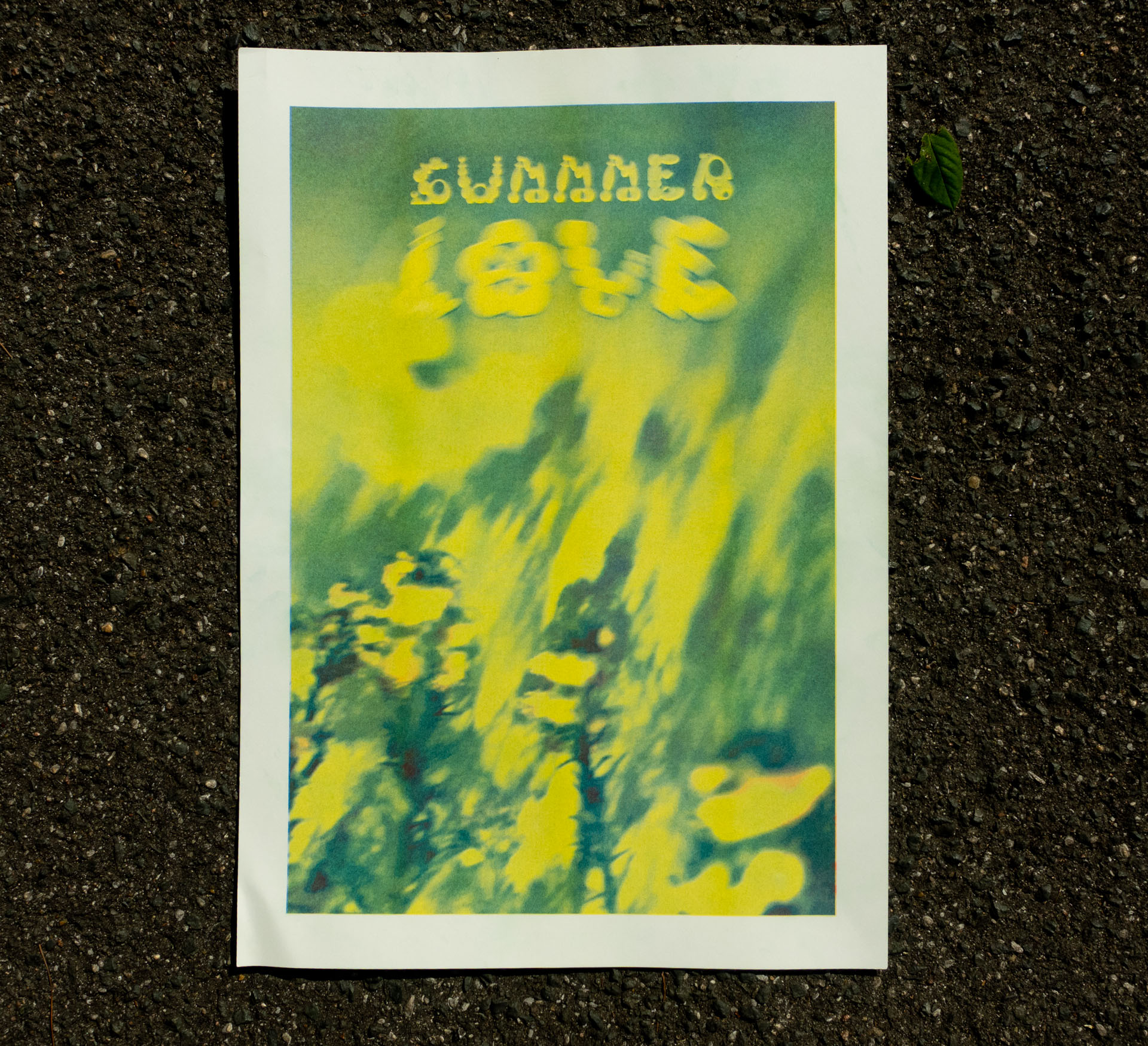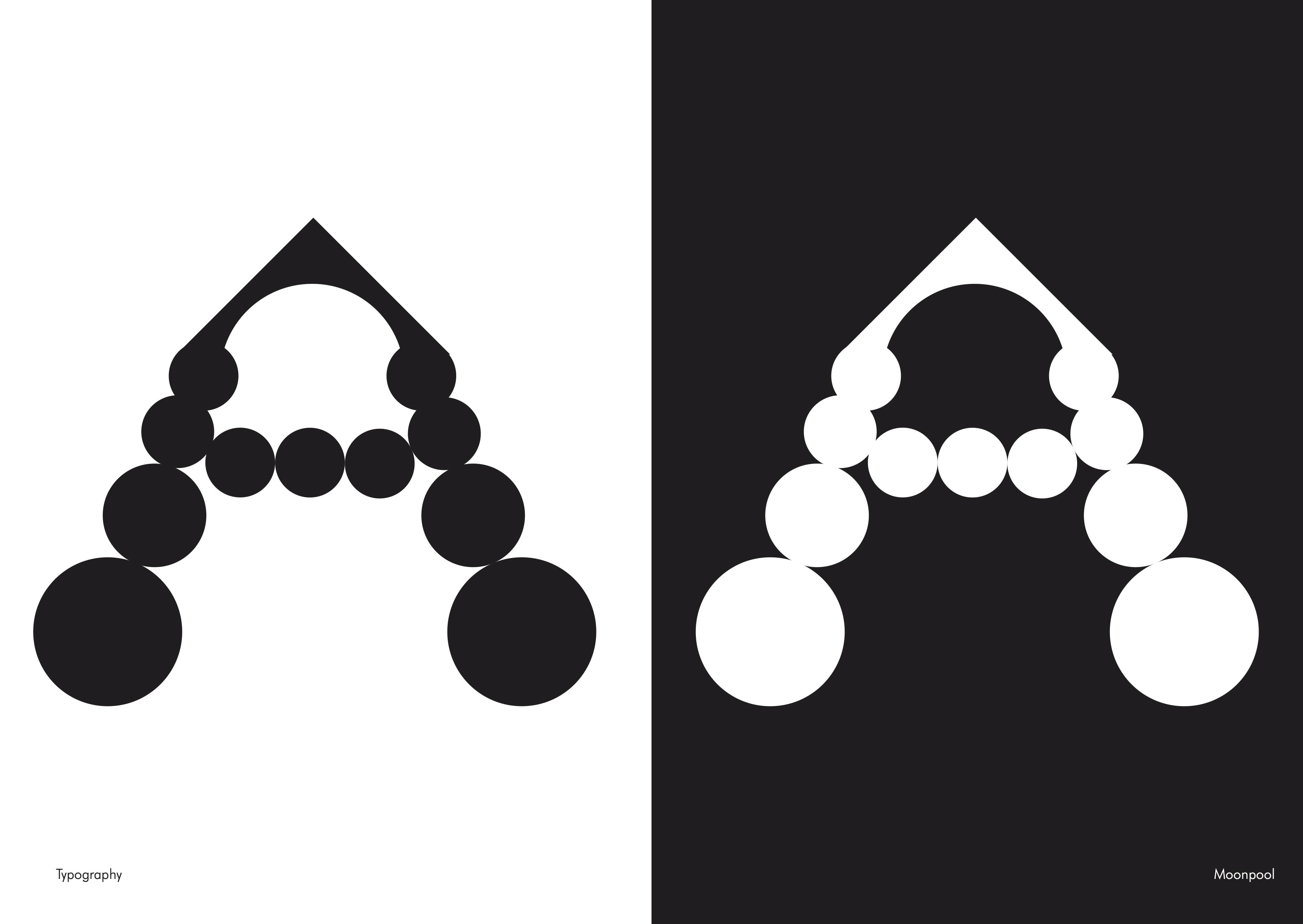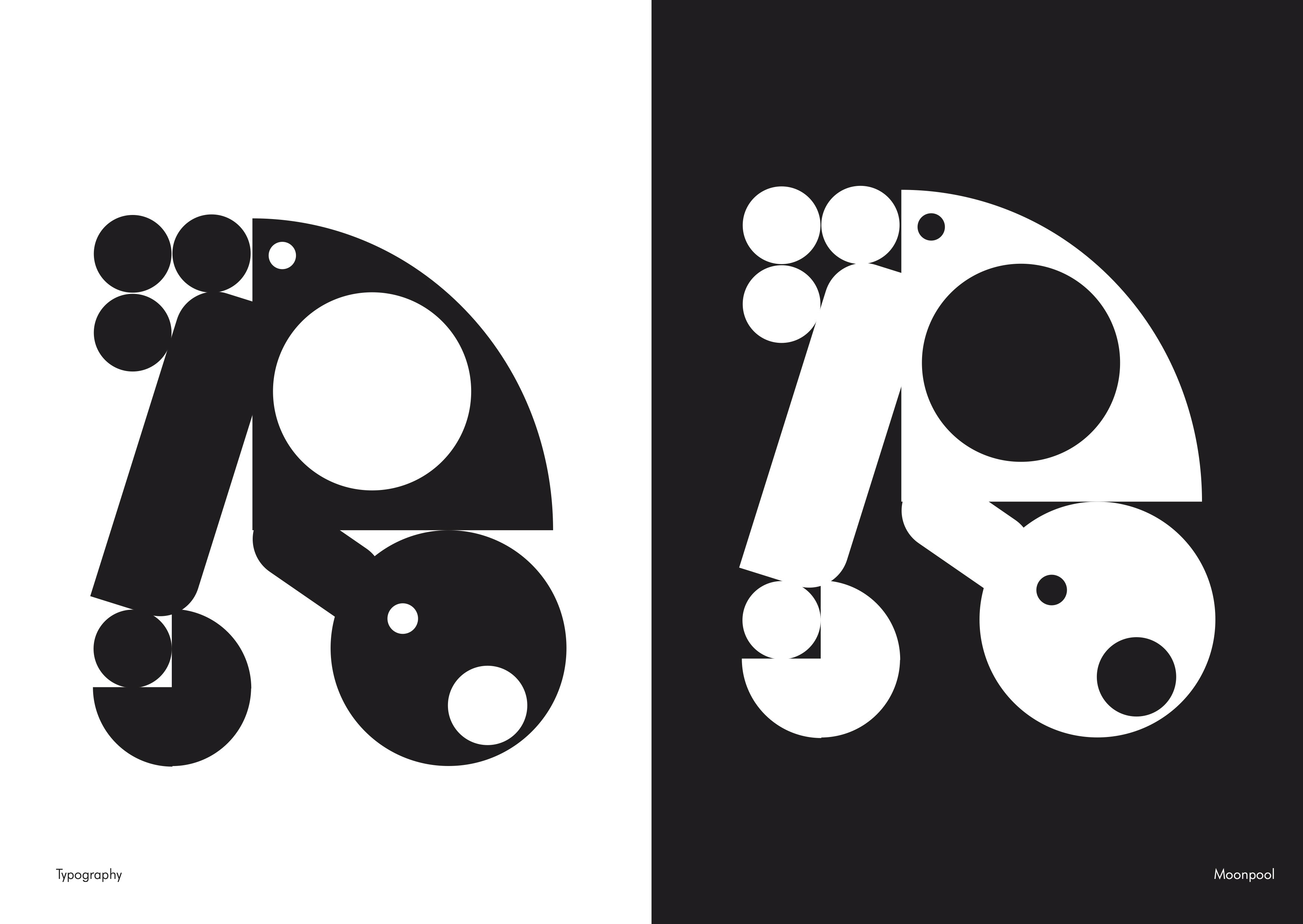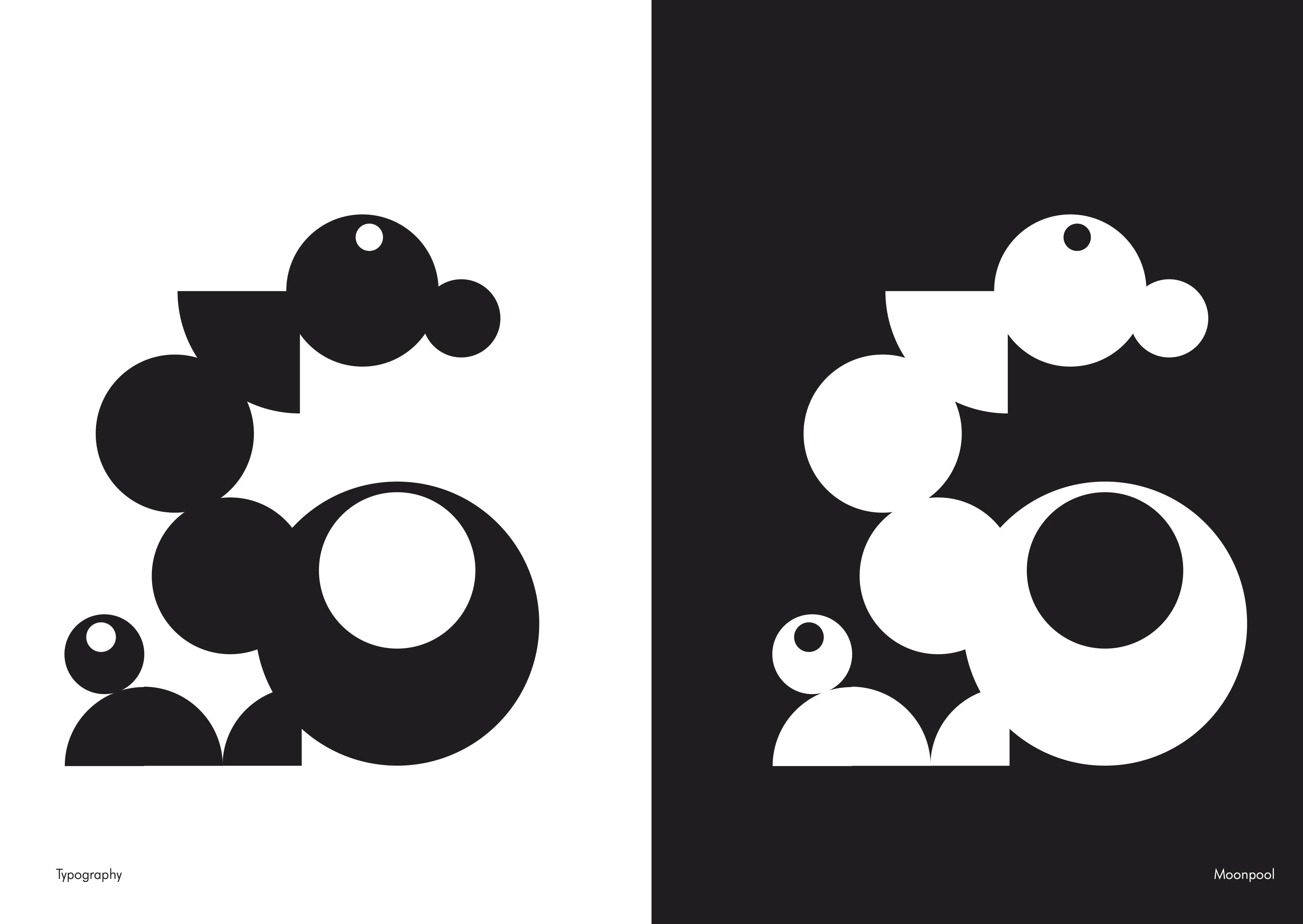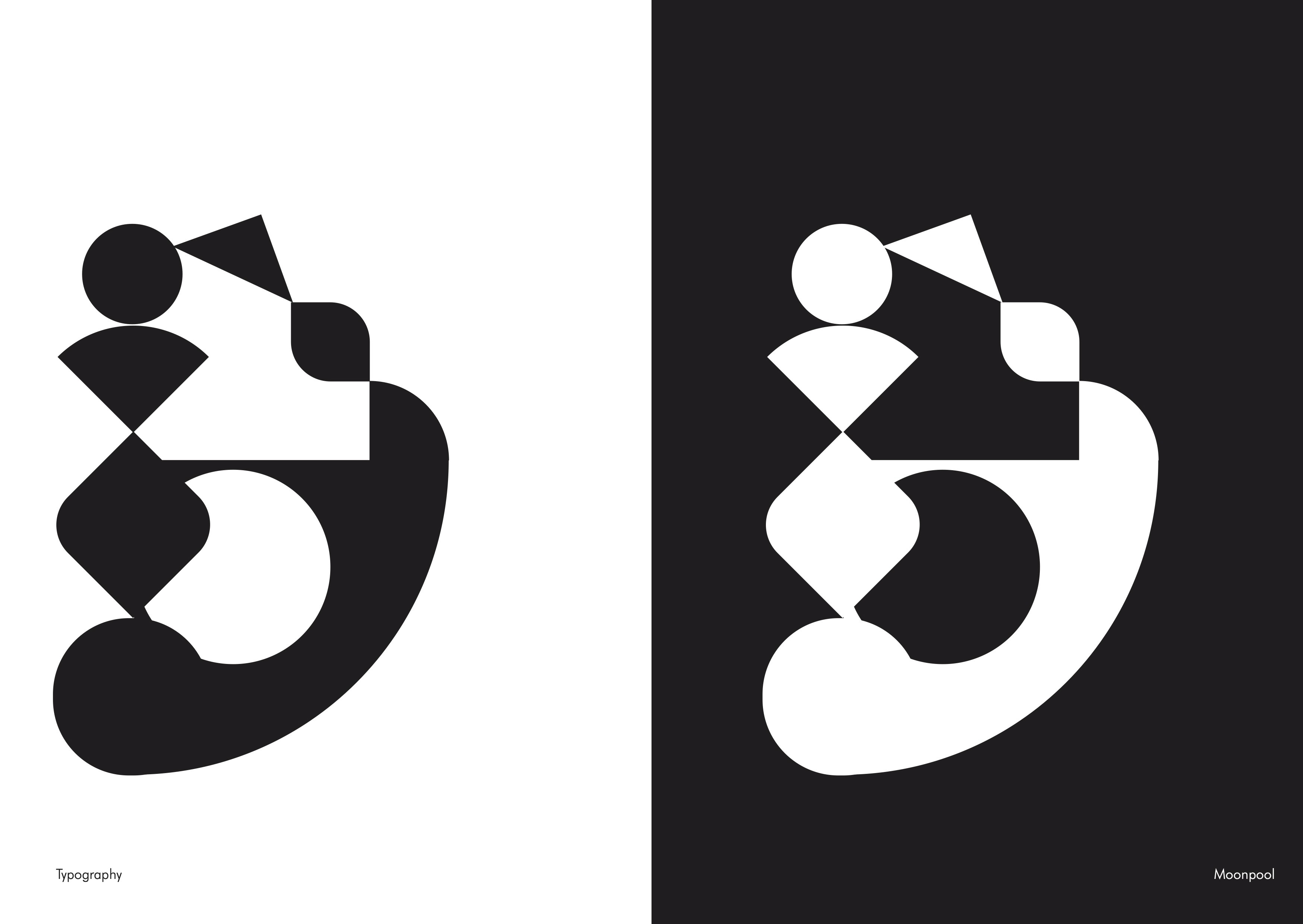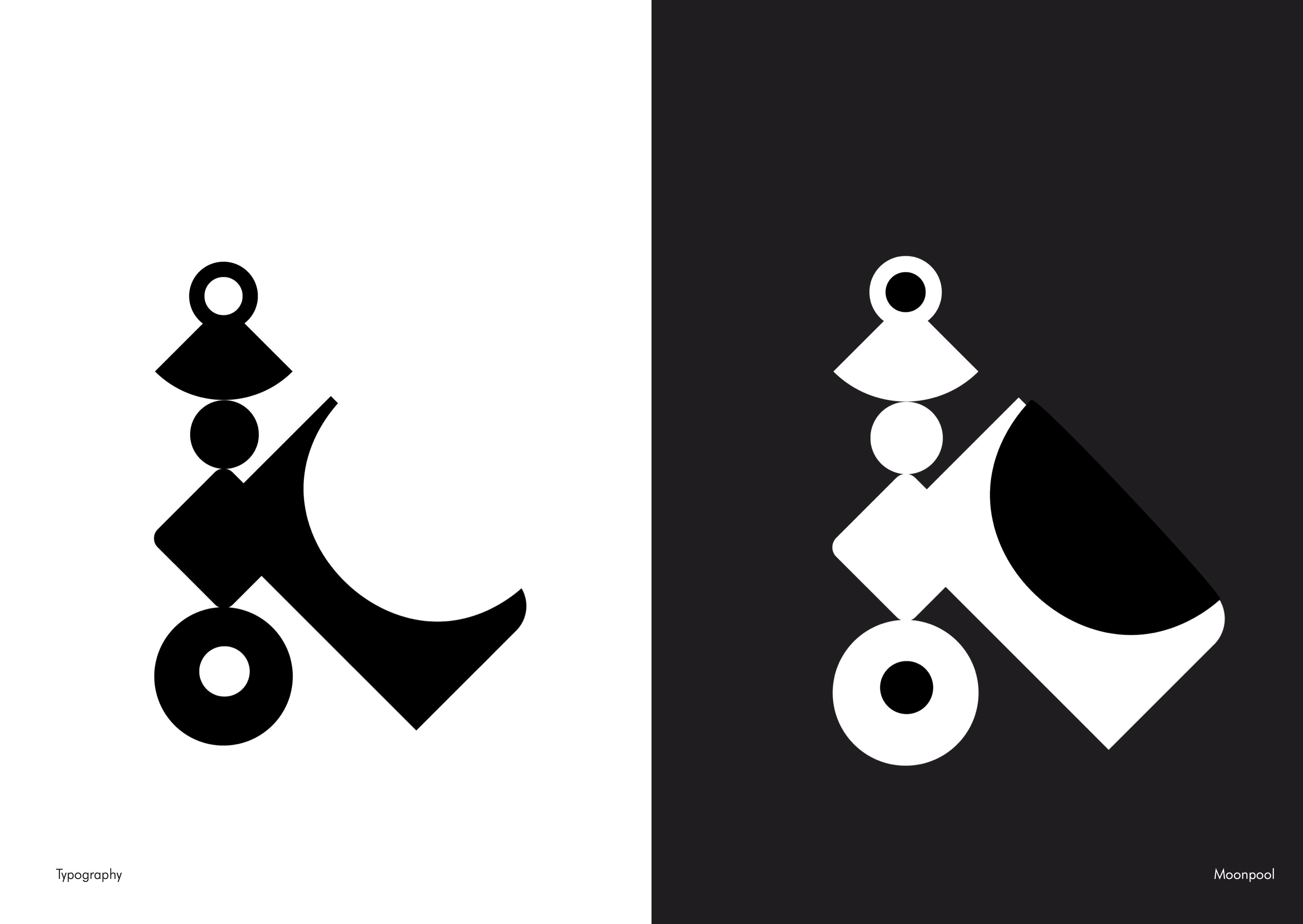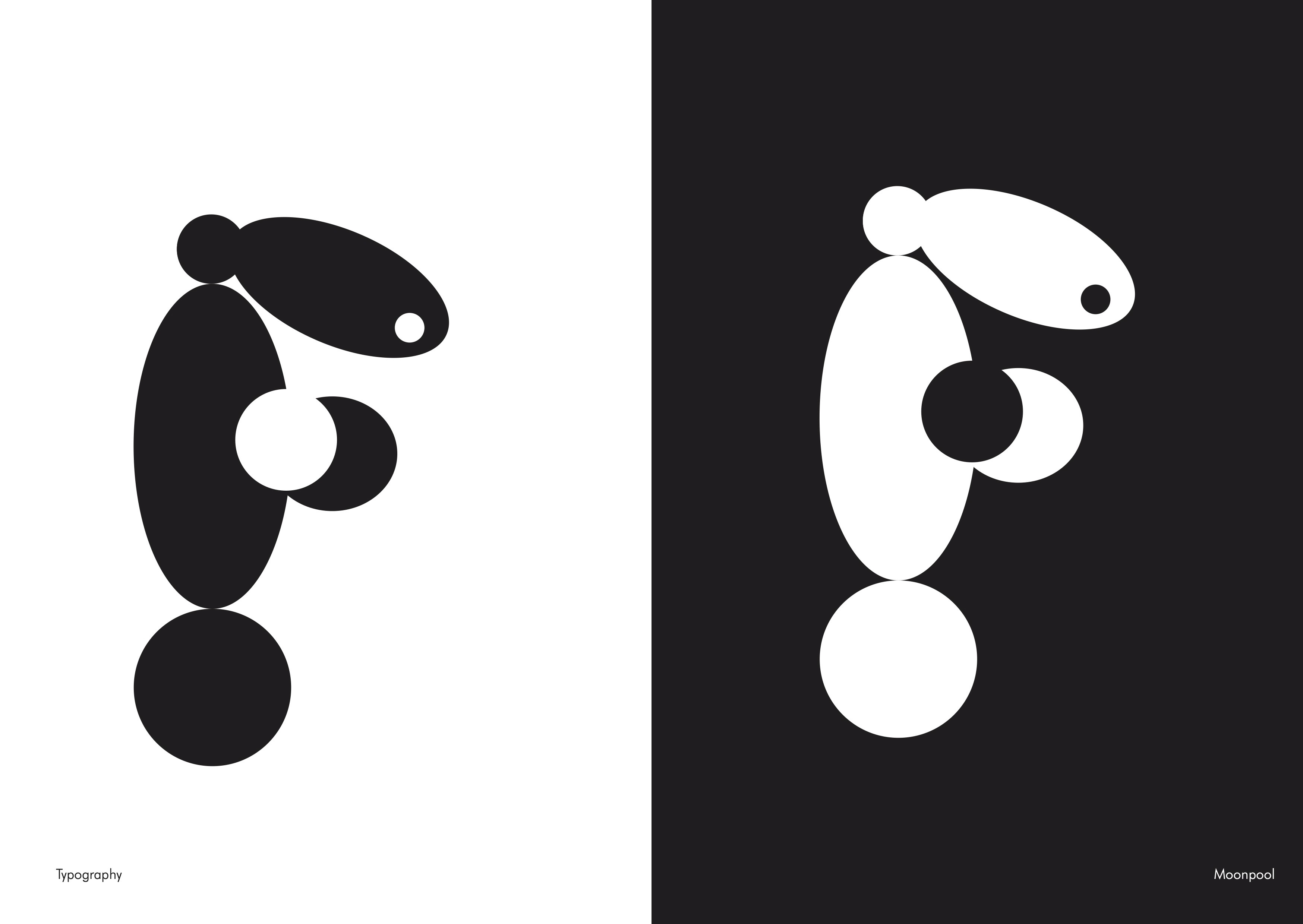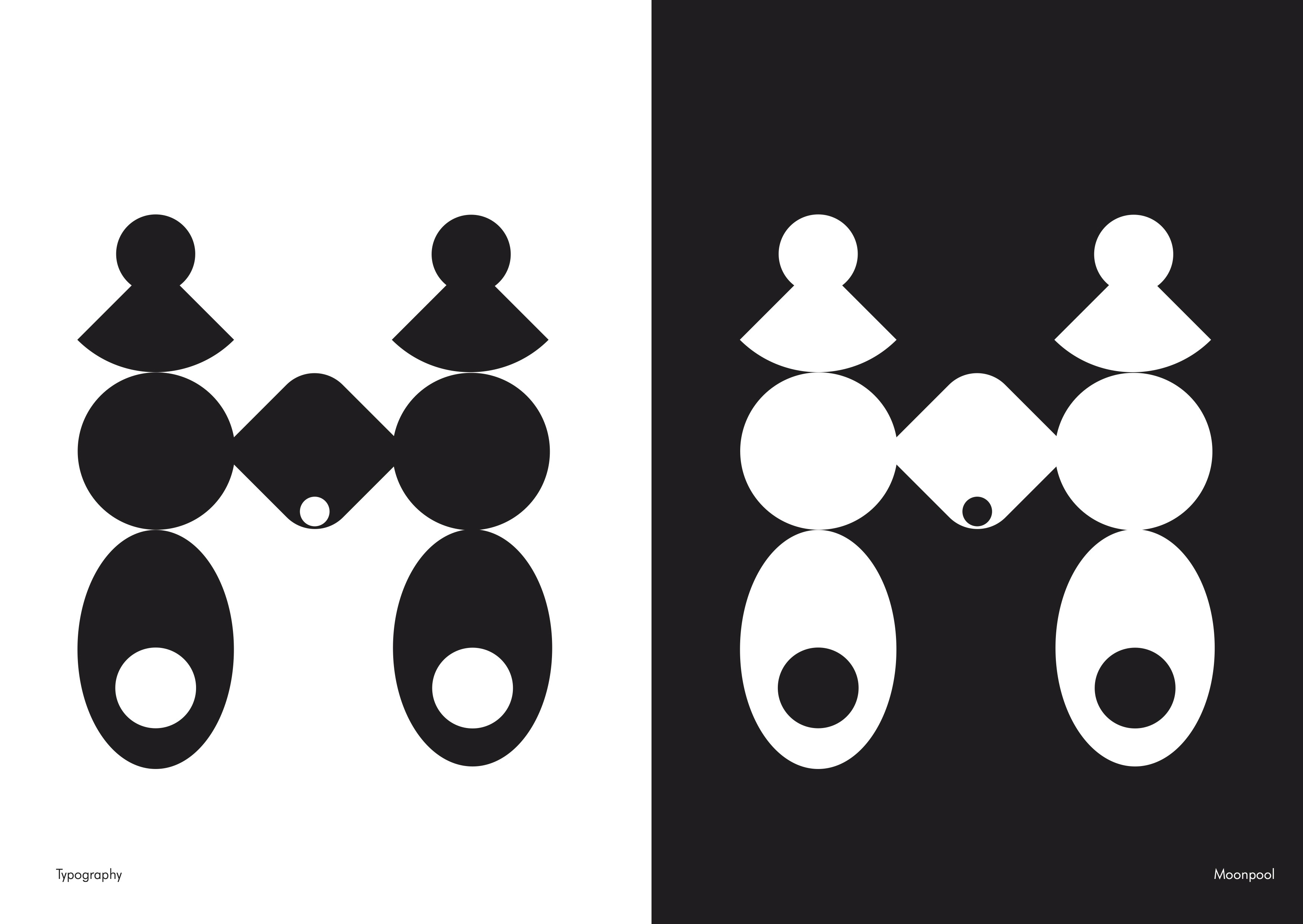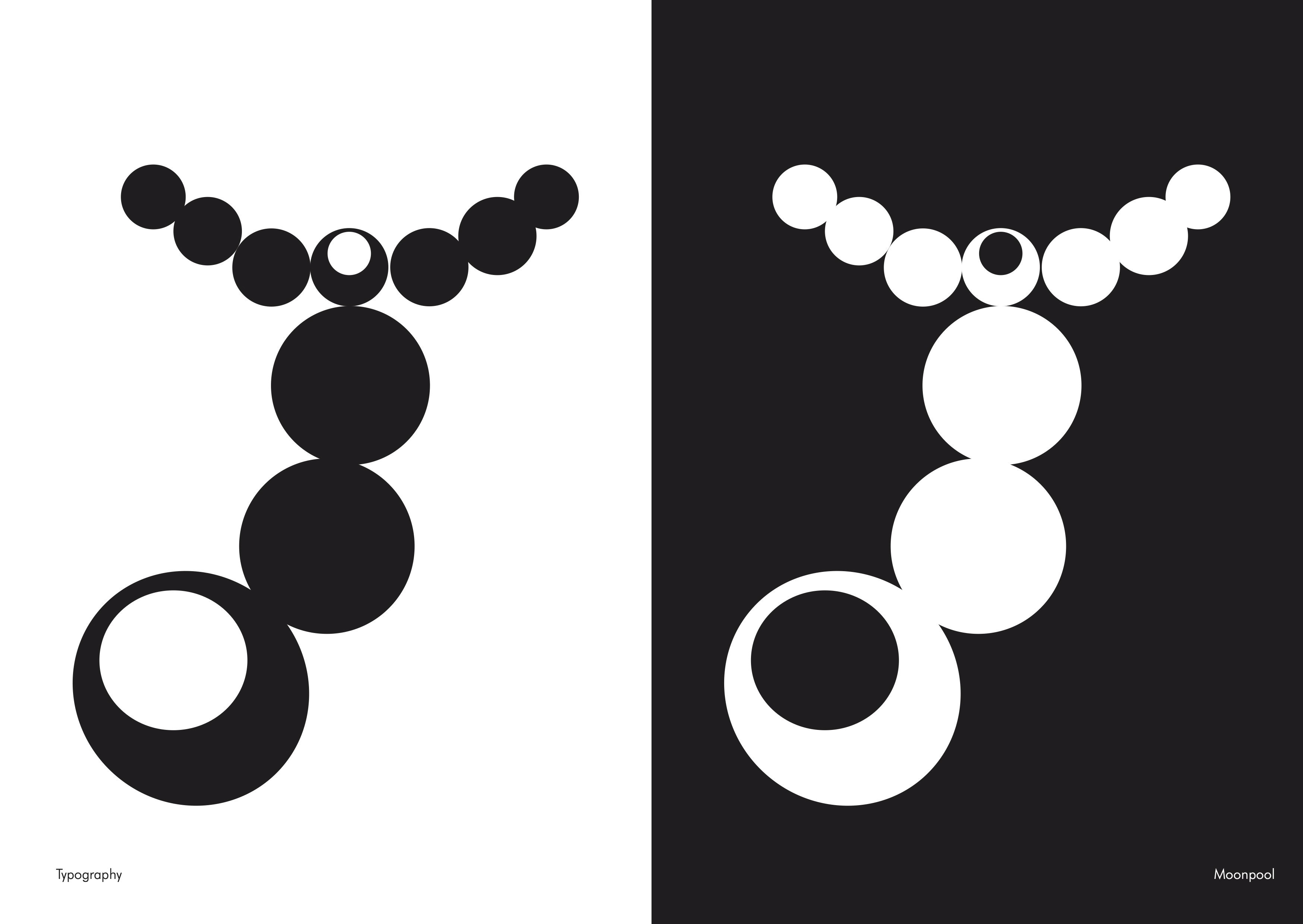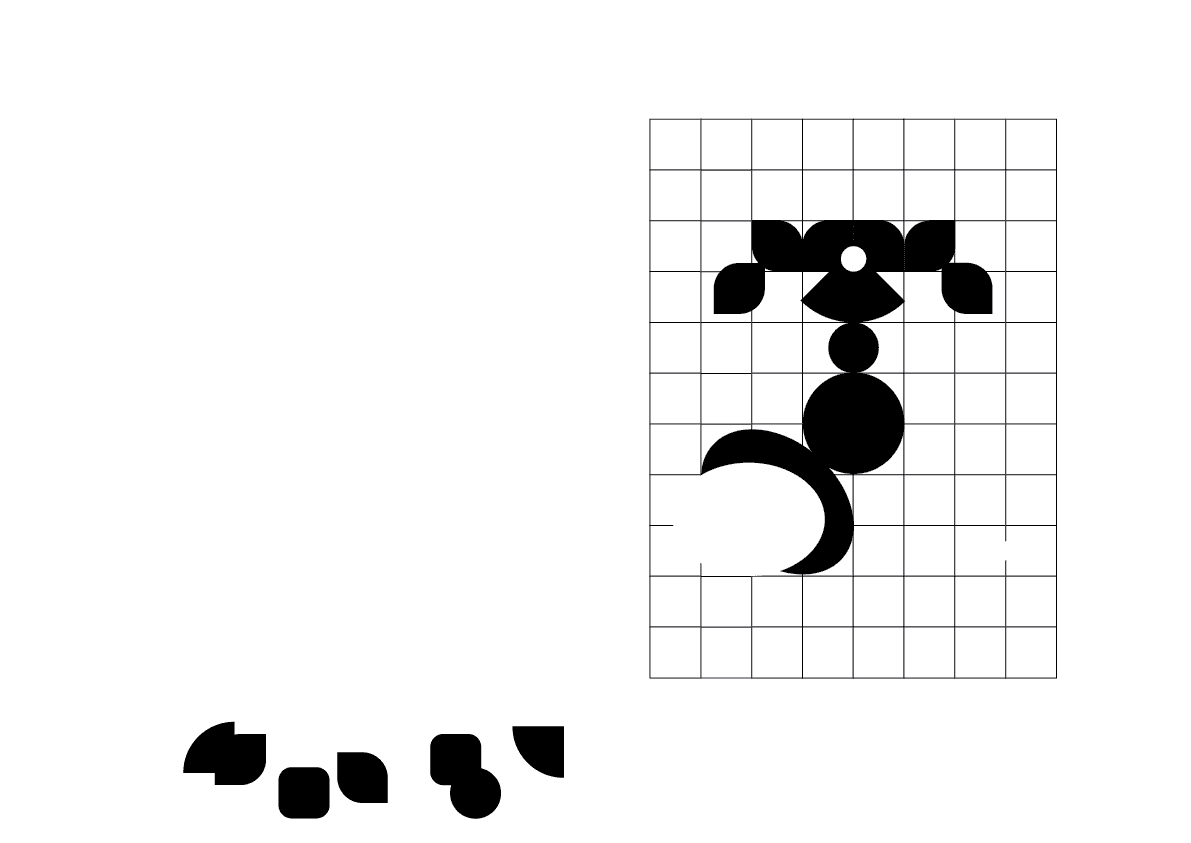
Photography by me. Riso Print Poster
The suspended moment,
when water gathers before it falls.
vector letterforms, illustrator
then glyphs for advanced typography
features (kerning, spacing)
Complete alphabet constructed from these 5 geometric elements:
Multiple versions explored for each letterform testing optical weight, legibility, and character consistency: